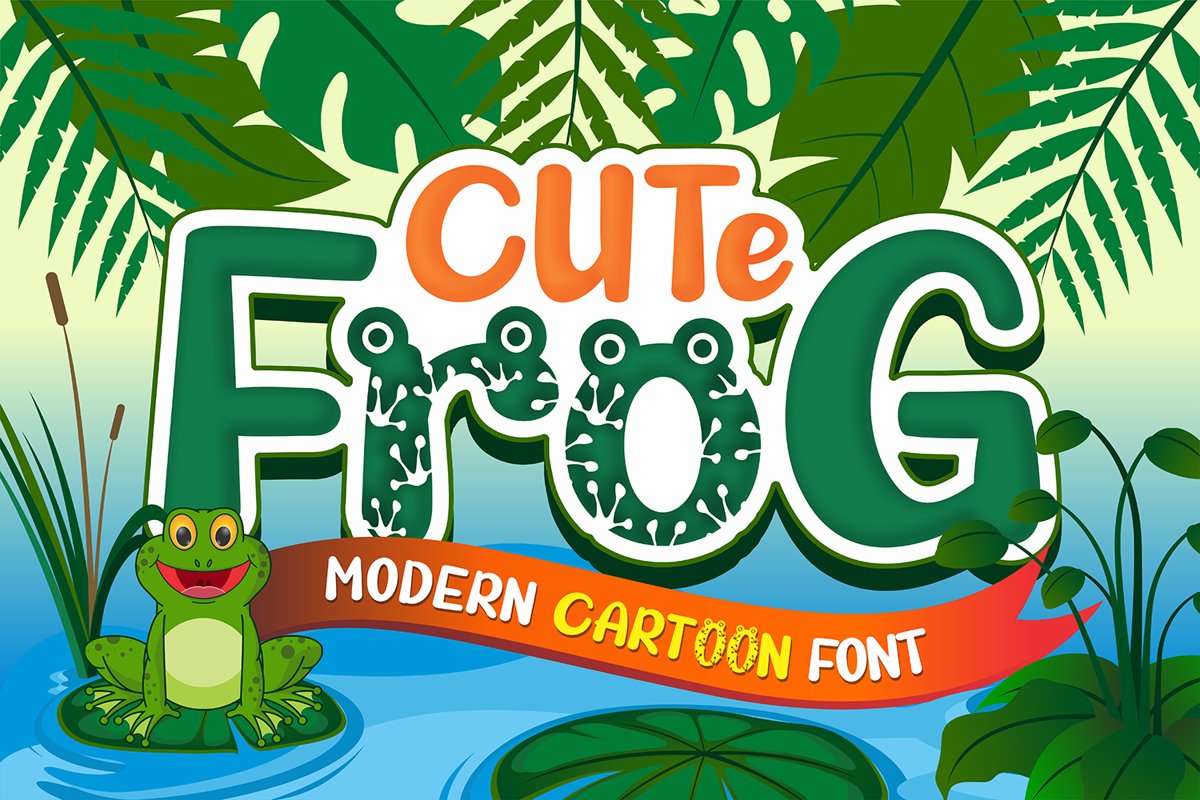
CUTE FROG
Cute Frog is a product font that has a frog character in
it and has a modern style suitable for making logos,
templet designs, screen printing clothes,
banners and so on related to children.
Cute Frog also provides alternative letters
and numbers as well as several other bonus vectors.
The alternative
characters were divided into several Open Type features such as Swash,
Stylistic Sets, Stylistic Alternates, Contextual Alternates. The Open